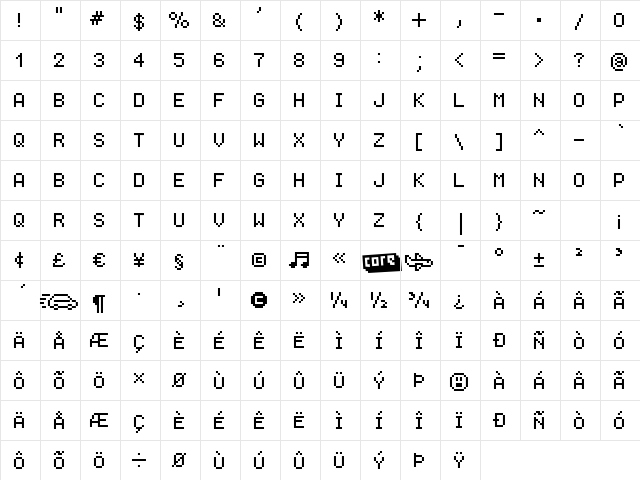
Oh La La Regular
Design Context for Oh La La Typeface
Oh La La takes a measured approach to typography — its balanced proportions and neutral character make it a reliable workhorse for both digital and print work.